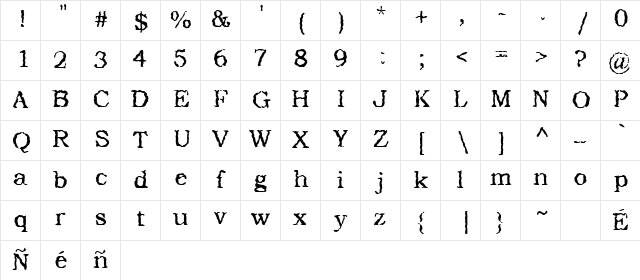
Addict Regular Free Font
Addict Regular
Design Context for Addict
Addict is a composed and adaptable typeface that performs quietly and consistently across a wide range of design contexts.
Pro Tip: Use Addict in both headline and body roles to test its range before committing to a single application.